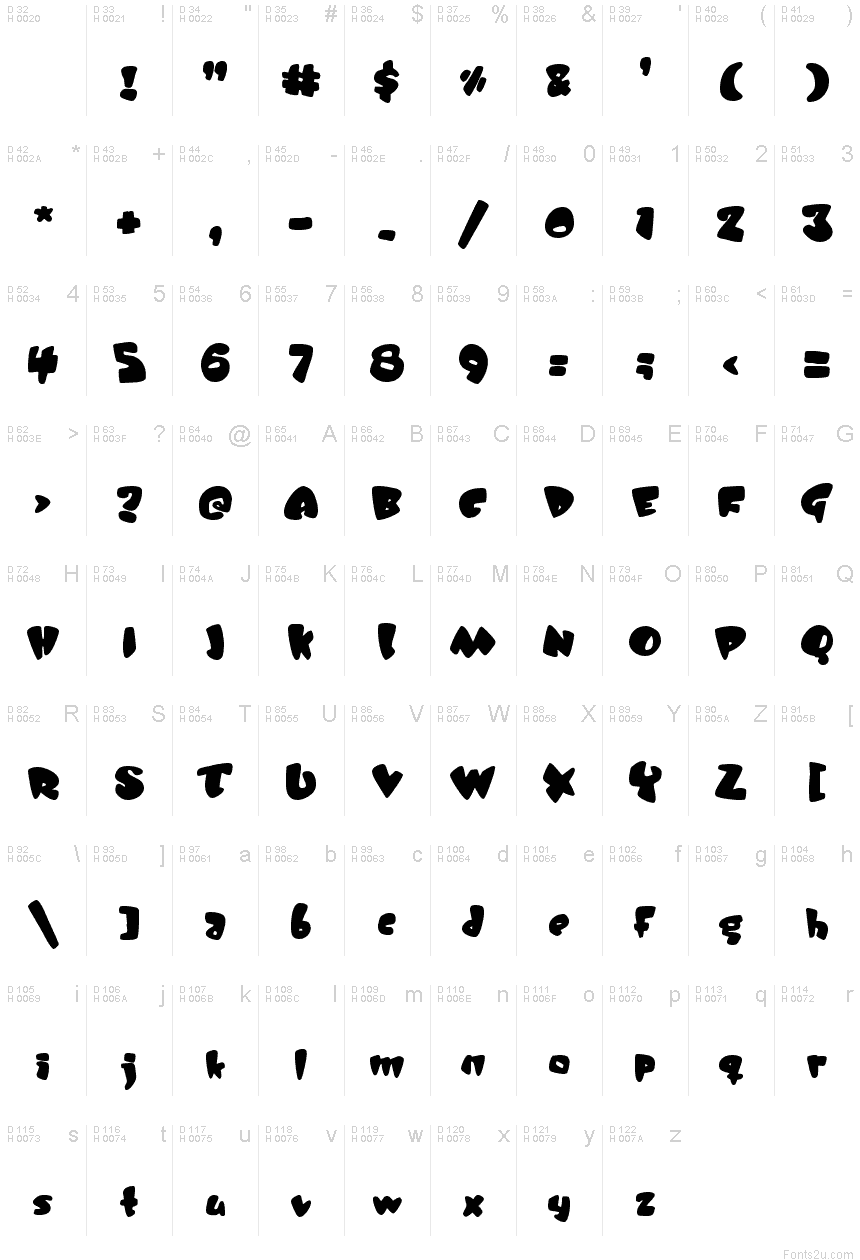
JellyBelly
Jelly Belly font by Jakob Fischer is a free comic display typeface that looks like it’s been poured onto the page in thick, inky syrup. Each letter swells and wobbles with soft, rounded edges, giving your text a bouncy, hand-drawn charm that feels friendly and a little bit mischievous. The chunky shapes fill space confidently, so even a single word grabs attention like a bright candy wrapper on a shelf.
Using Jelly Belly, headlines instantly feel playful and edible-great for kids’ books, candy or snack packaging, party invitations, game logos, stickers, and bold social graphics. This free font shines at larger sizes where its blobby contours can really squish and stretch. For a clean contrast, pair Jelly Belly with a simple geometric sans-serif for body copy to keep the fun loud and the reading easy.